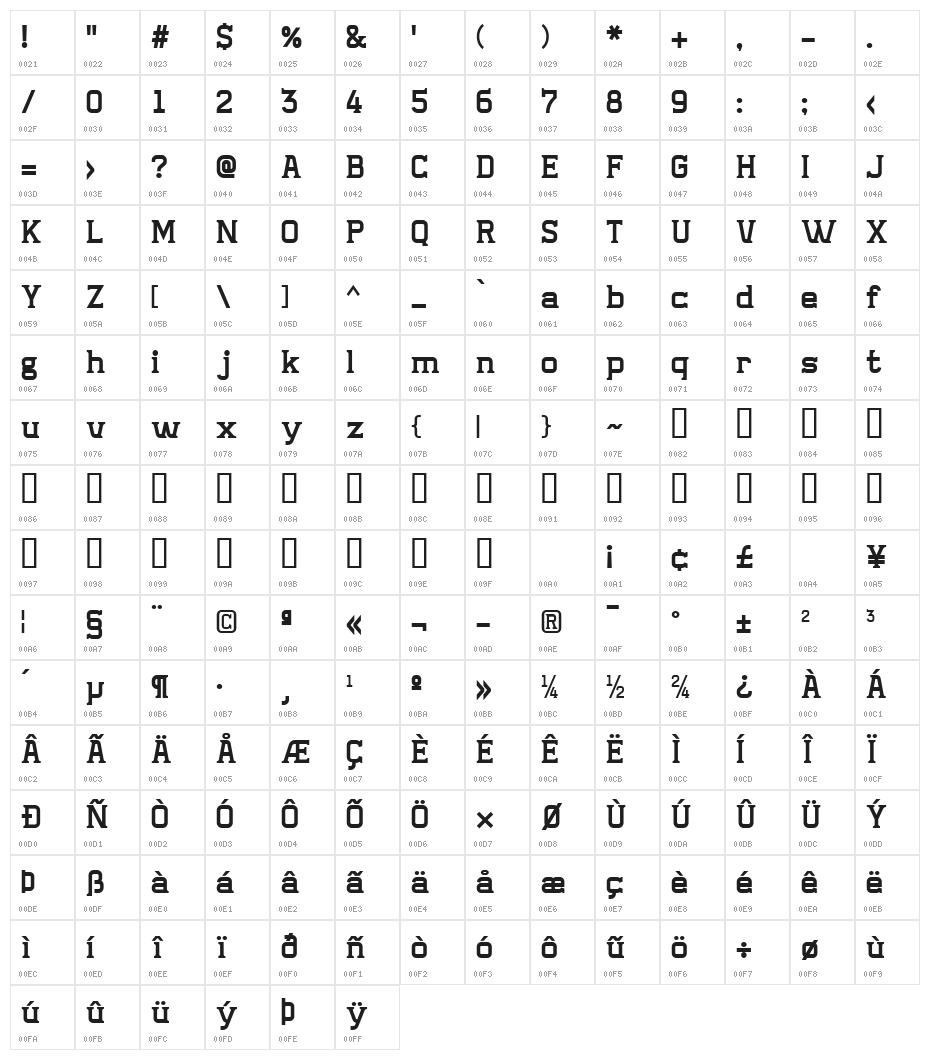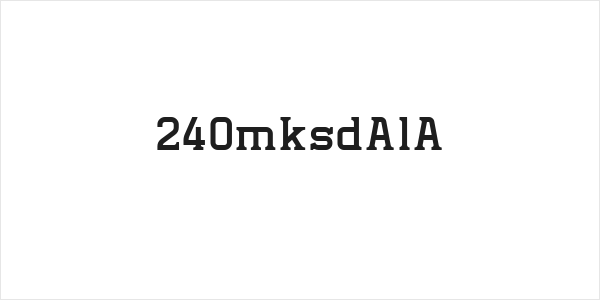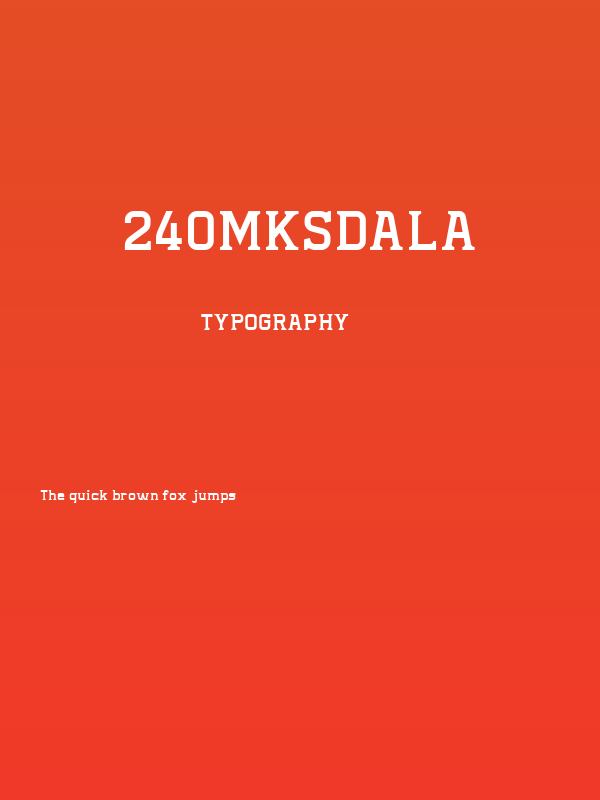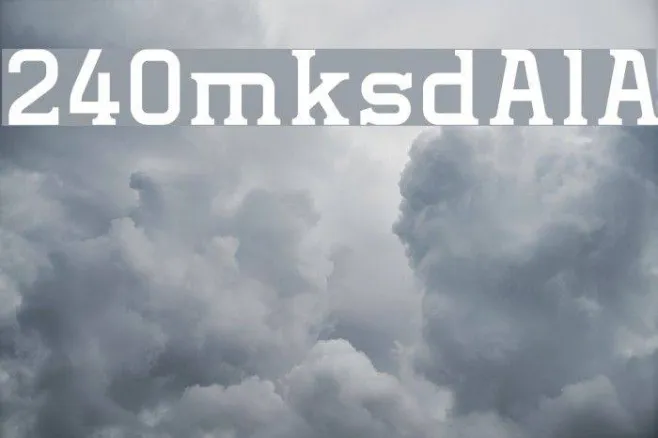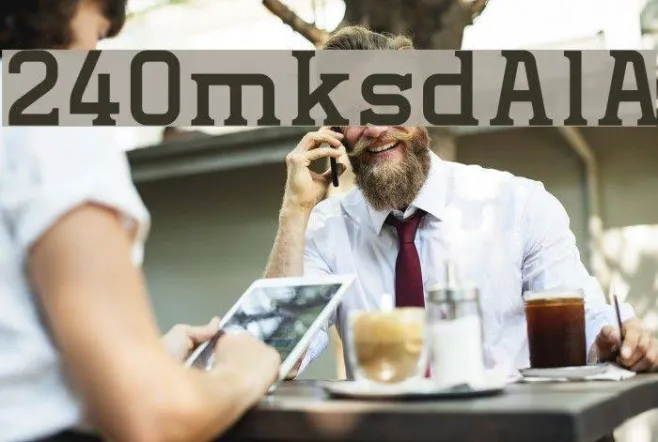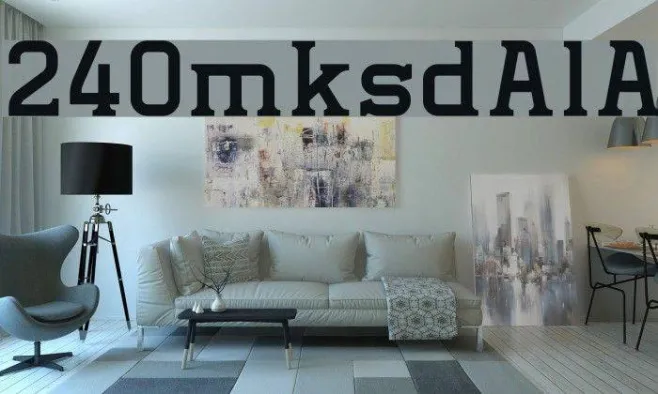
240mksdAlA Font
240mksdAlA Description
This font features a bold and robust slab serif design, characterized by thick, block-like serifs that give it a strong and authoritative appearance. The uppercase letters are uniform in height, with a slightly condensed width that enhances readability. The lowercase letters maintain a consistent style, with rounded edges that soften the overall look. The numerals are clear and distinct, making them ideal for display purposes. Special characters are well-defined, maintaining the font's bold aesthetic. This font's design is both modern and classic, making it versatile for various applications.
| Proposed Projects | Ideal for headlines, posters, branding, and any project requiring a bold, impactful typeface. |